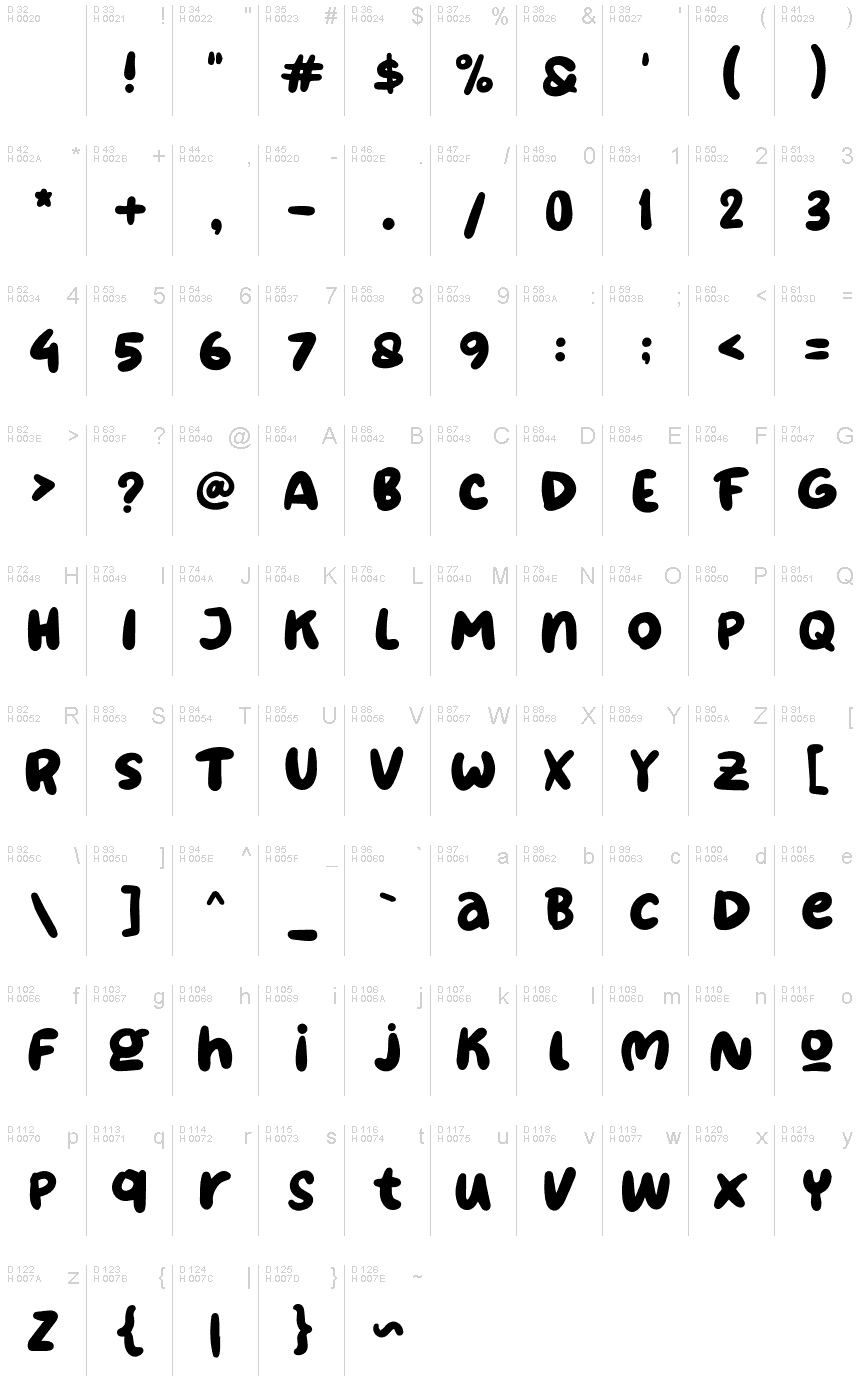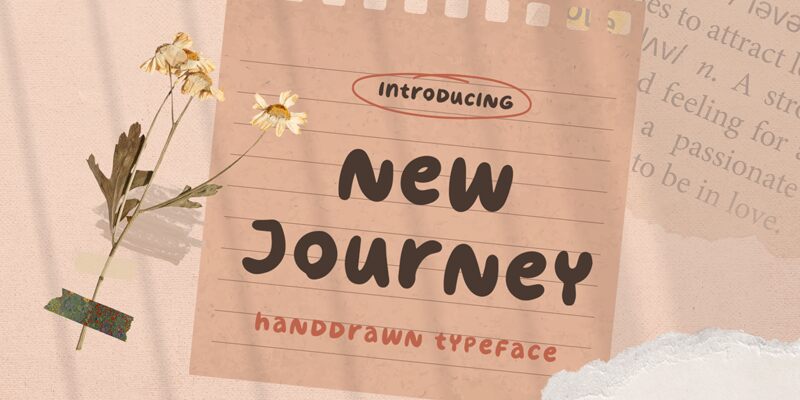
NewJourneyDemo
Discover the whimsical and playful charm of New Journey, a bold display font designed by Letterhend Studio. Perfect for children's storybooks or any creative project that calls for a standout typeface, this font is versatile and suitable for a range of applications.
Whether you're designing a logo, packaging, magazine layout, or advertising materials, New Journey adds a touch of fun and personality to your work. Its bold weight and cartoon style make it an eye-catching choice that stands out in any context. With its unique characteristics and broad potential for creative projects, New Journey is sure to add a playful twist to your designs.